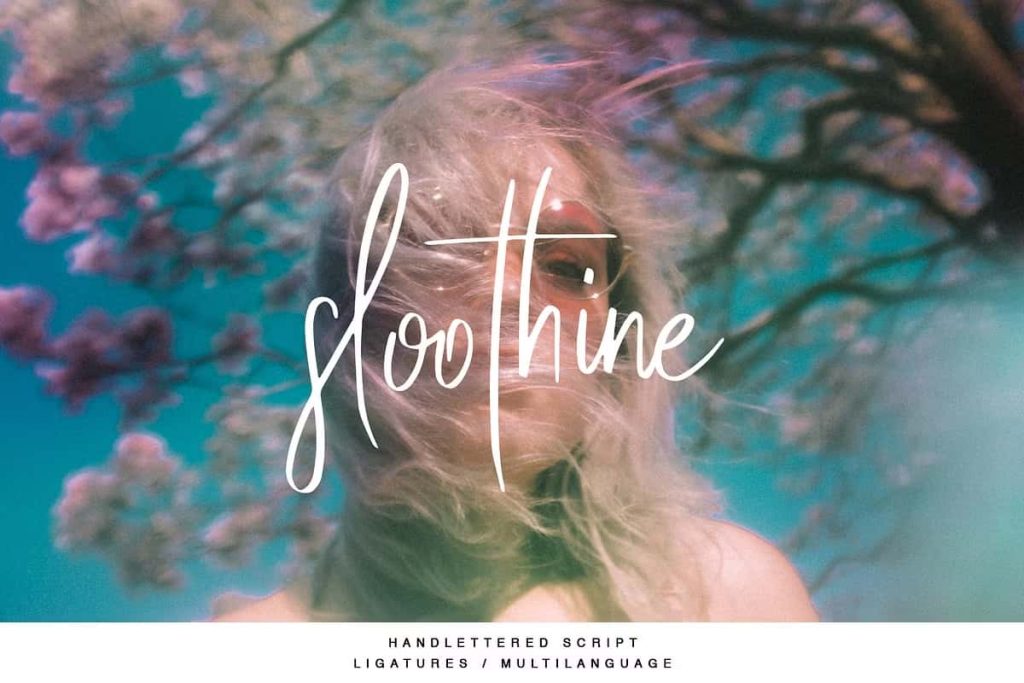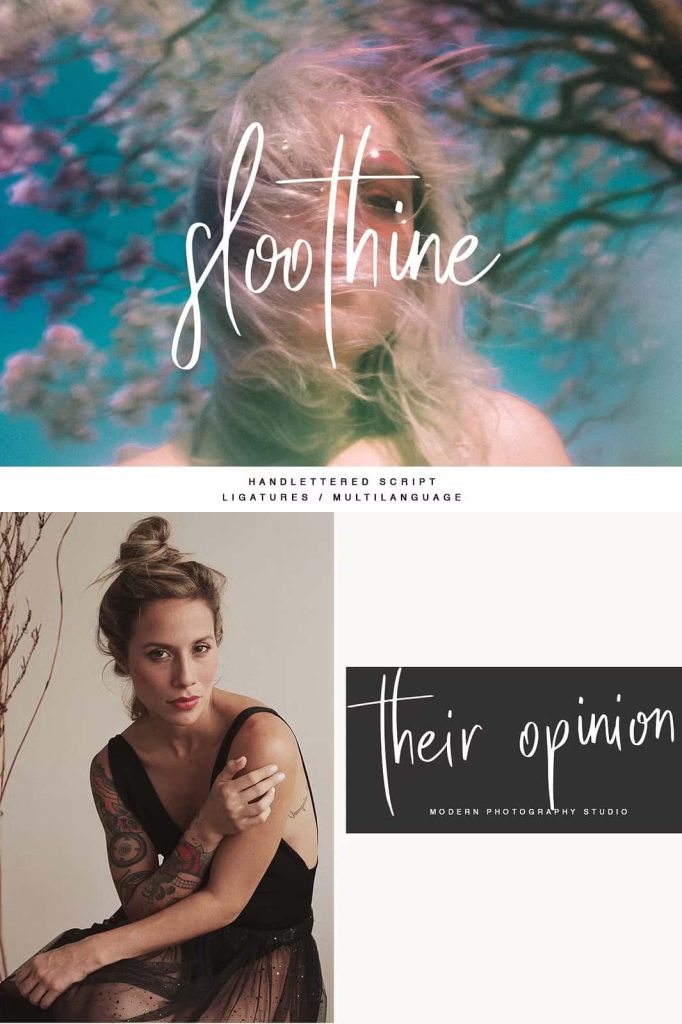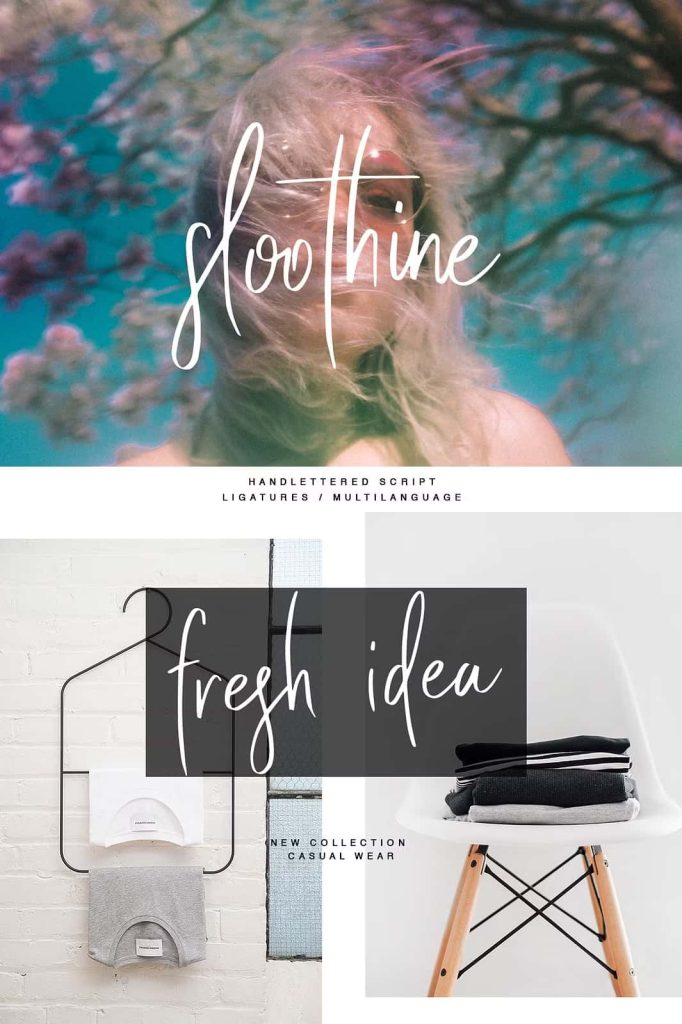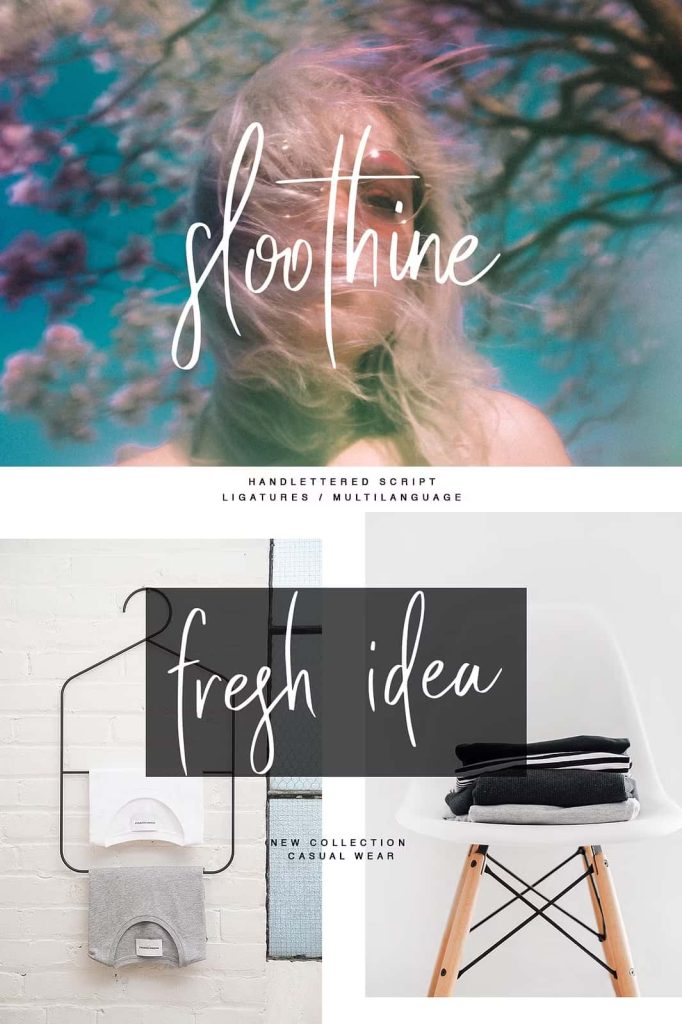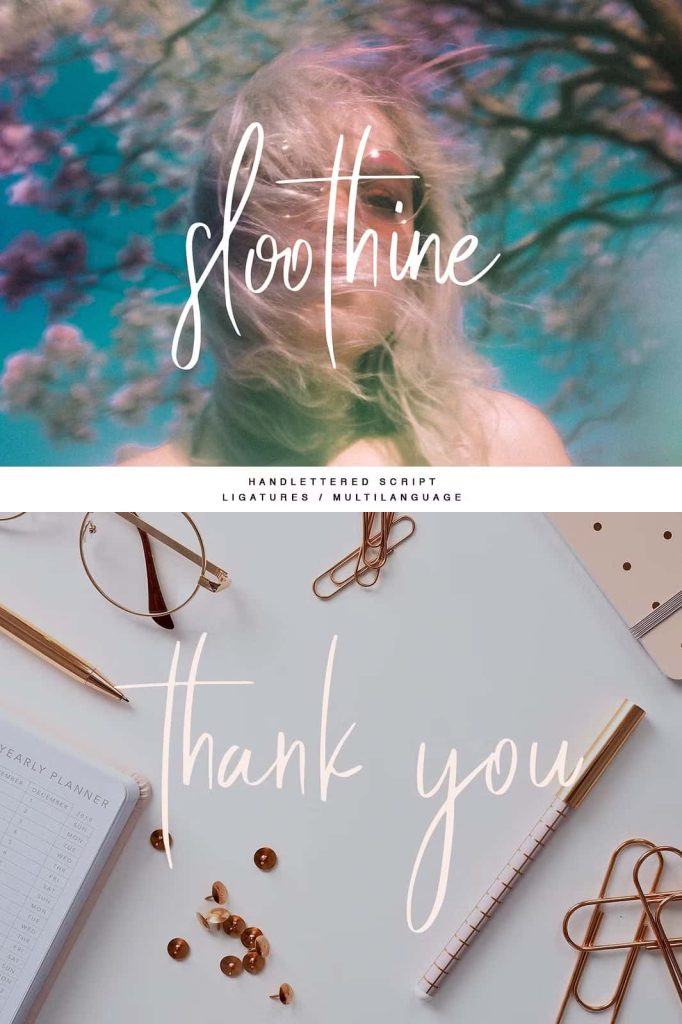
sloothine – a new fresh handmade calligraphy font.
Very suitable for greeting cards, branding materials, business cards, quotes, posters, and more!This font are perfect for wedding postcard. Or you can create perfect and unique design of your logo, blog, stationery, marketing, magazines and more 🙂